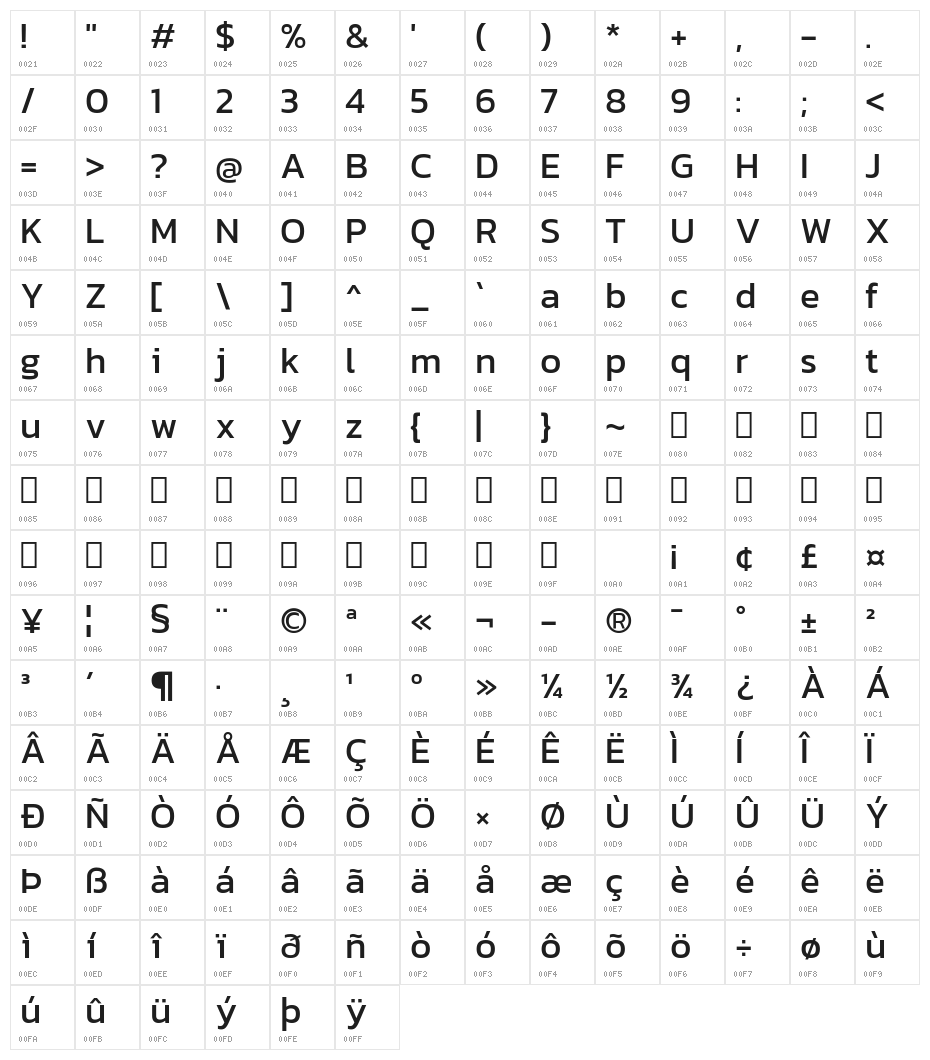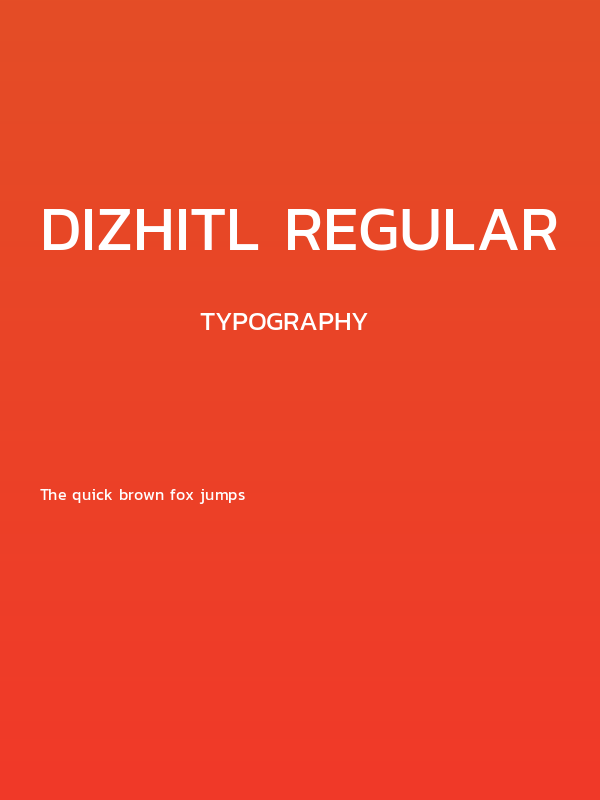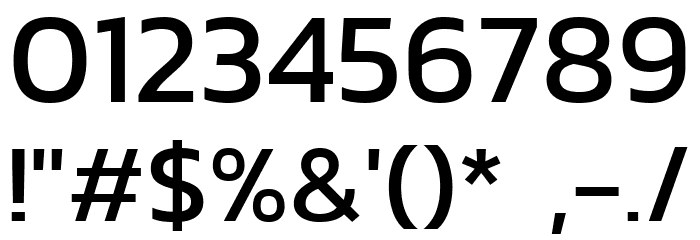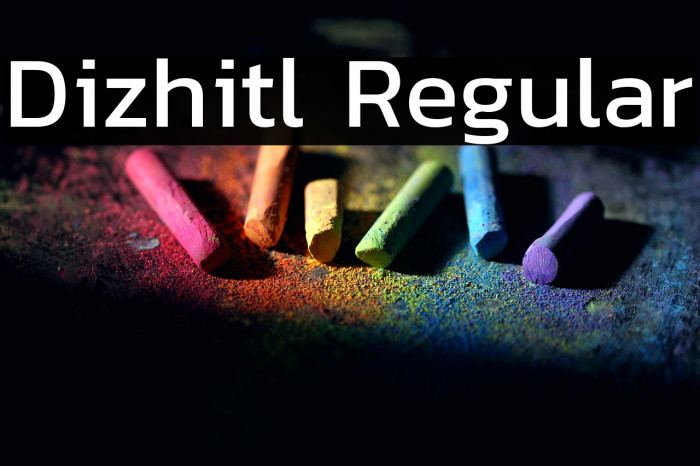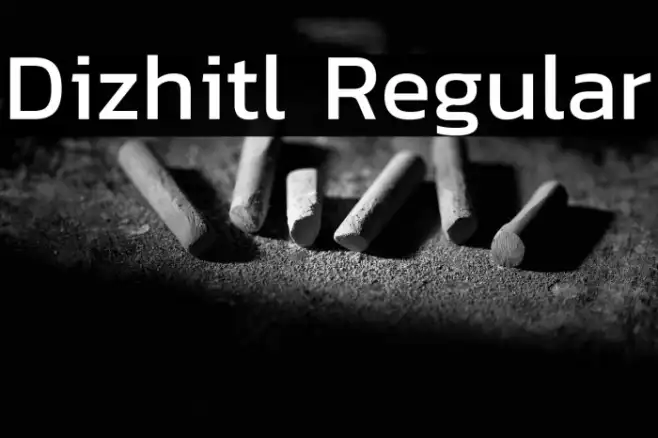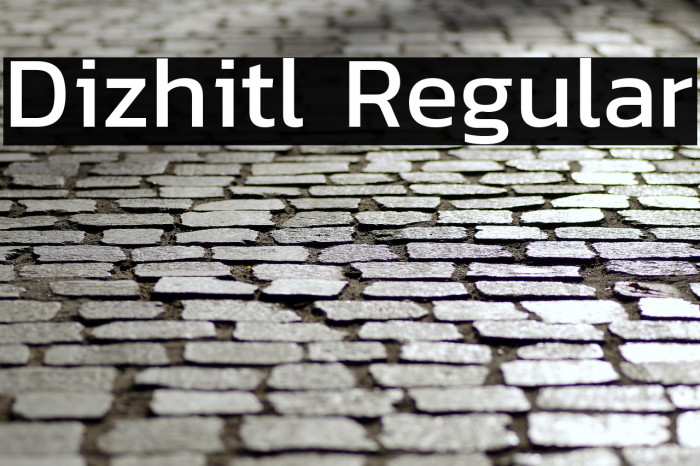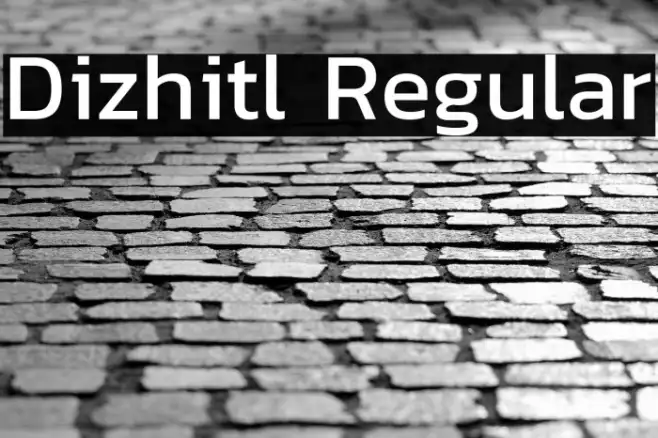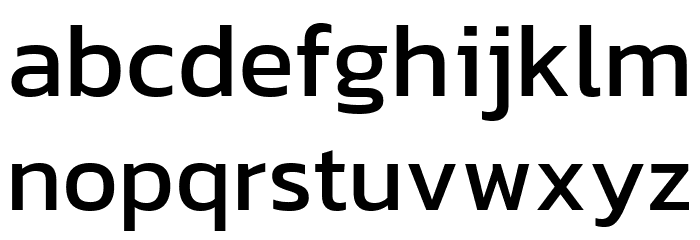
Dizhitl Regular Font
Dizhitl Regular Description
This font features a clean and modern sans-serif design, characterized by its simplicity and readability. The letters are evenly spaced with a consistent stroke width, providing a balanced and harmonious appearance. The uppercase and lowercase letters are well-proportioned, making it suitable for a variety of applications. The numerals are clear and distinct, ensuring legibility in both print and digital formats. Special characters are included, maintaining the font's cohesive style. Its straightforward design makes it versatile for both professional and casual use.
| Proposed Projects | Ideal for corporate branding, web design, user interfaces, and editorial layouts. |